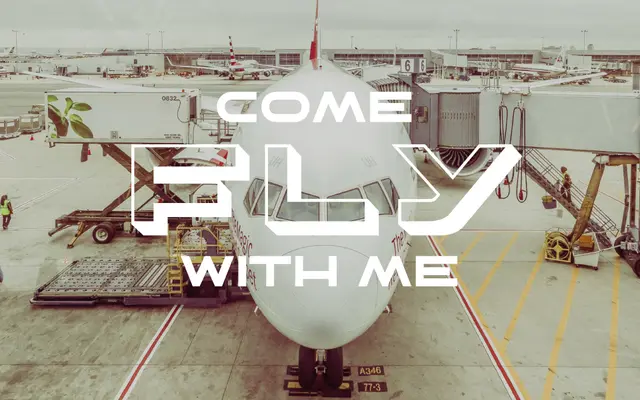
CA Aircona
Cape Arcona · Stefan Claudius
A three-style display face by Stefan Claudius modelled on aircraft lettering, with a layered Regular, Shadow and Fill system for dimensional typesetting.
Designed around the visual language of aviation lettering, CA Aircona comes in three complementary styles: Regular, Shadow and Fill. Overlaying the Regular with the Shadow style produces a convincing 3D effect, while the Fill variant adds further compositional flexibility. Upper and lowercase alternates are built in for additional variety when setting type.
Classified as Display by the foundry; styled after aircraft lettering with built-in 3D shadow and fill variants, placing it firmly in the decorative/display category.